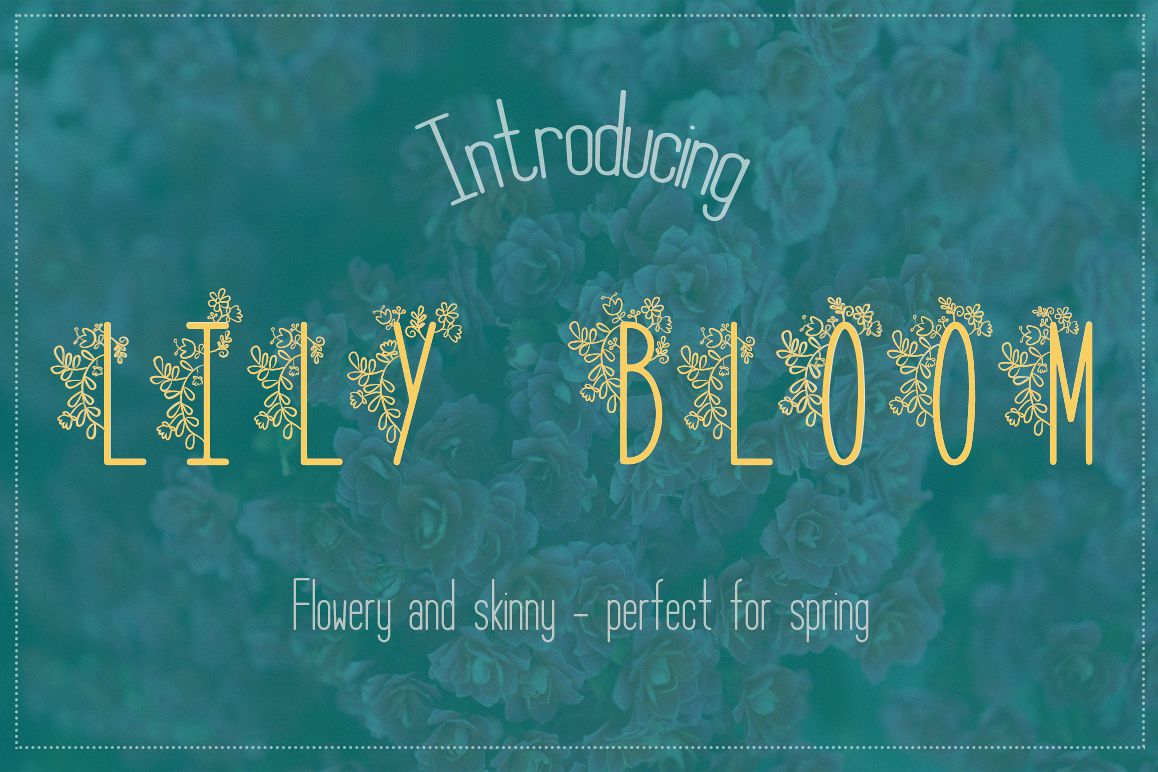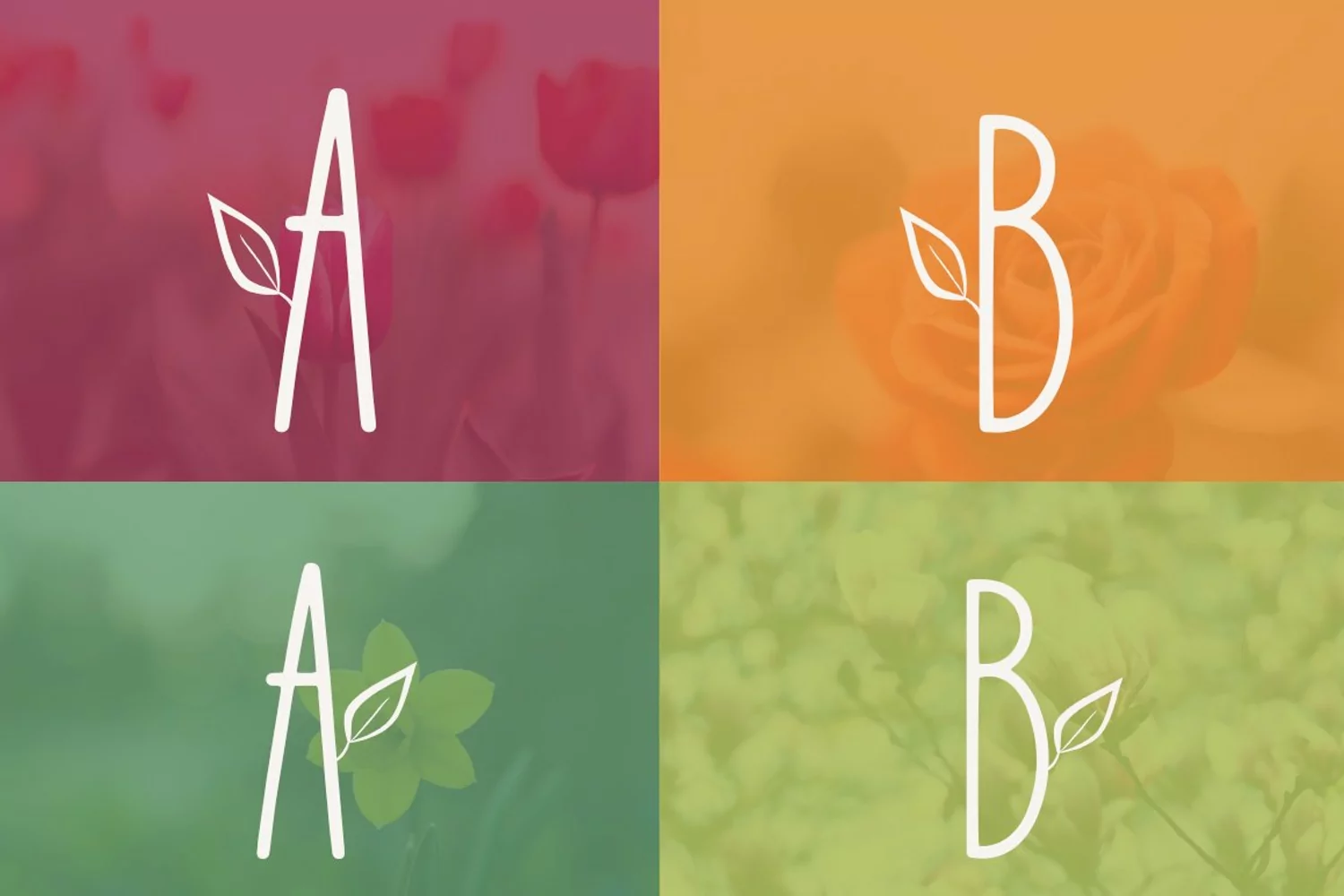
Lily Bloom Flowery Font
Presenting Lily Bloom! A playful new font that is perfect for
crafters and not only. If you want to create beautiful project in
minutes Lily Bloom is the choice! The download file contains four fonts:
Regular, Flowers, Leaves Left and Leaves Right, letters and extended
punctuation.
The uppercase letters in Lily Bloom Regular are monospaced so you can
stack words on top of each other for a perfect rectangle. Lily Bloom
Flowers, Lily Bloom Leaves Left and Lily Bloom Leaves Right fonts are
all-caps, but just as great!